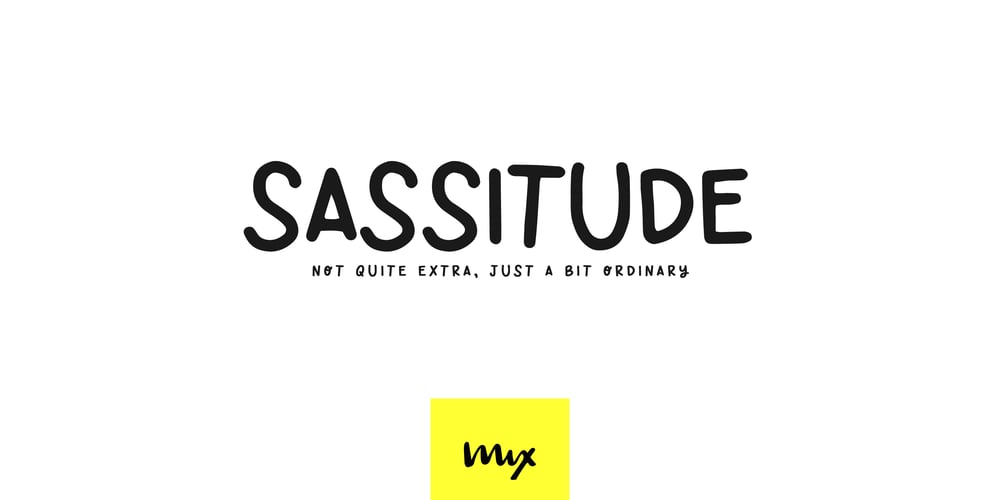
Sassitude
Sassitude font
Sassitude Font Family was designed by Mikko Sumulong and published by Mix Fonts. Sassitude contains 1 styles and family package options. MIX SASSITUDE is a cutesy, basic, swirly monoline print font that adds a touch of quirk and Sassitude to your designs. With its mix of basic letters and a few quirky ones, this font strikes the perfect balance between plain and cute. Other than that, it’s not quite extra, just a bit ordinary. Some attitude, a whole lot of sass. Whether you want to add a playful twist to your projects or simply want a font that stands out, MIX SASSITUDE is the perfect choice.Mix Sasitude comes with the following glyphs:includes the following characters: ABCDEFGHIJKLMNOPQRSTUVWXYZ abcdefghijklmnopqrstuvwxyz 0123456789 !@$#%^&*()`~♥•· ÷×+−±≈=≠≥≤[]:;’”,.|/?{}<>‹›‚„“”‘’-–—_…©®™«»†°¹²³¡¿₱¢€£¥§ ÁÀÂÄÃÅĂĀĄÆĆČÇÐĐÉÈÊËĖĒÍÌÎÏĪŁŃÓÒÔÖÕØŌŐŒŠȘȚÚÙÛŰŪŲÝŸŹŽŻÞ áàâäãåăāąæćčçðđéèêëėēíìîïīįłńñóòôöõøōőœśšșțúùûüűūųýÿźžżþ